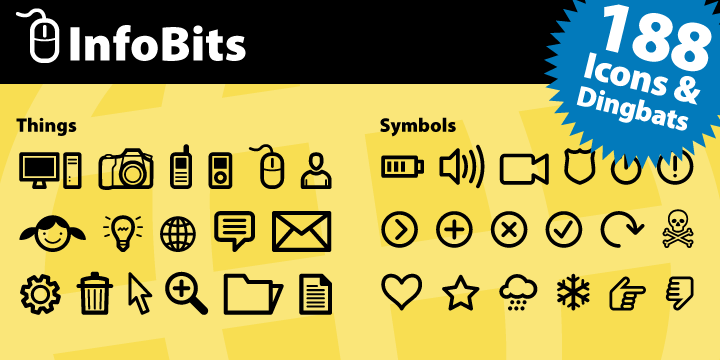
InfoBits is a dingbat font family. This typeface has two styles and was published by Fonthead Design Inc.
InfoBits is a two-font system of dingbats with a strong technology theme. The complete family has 188 icons.